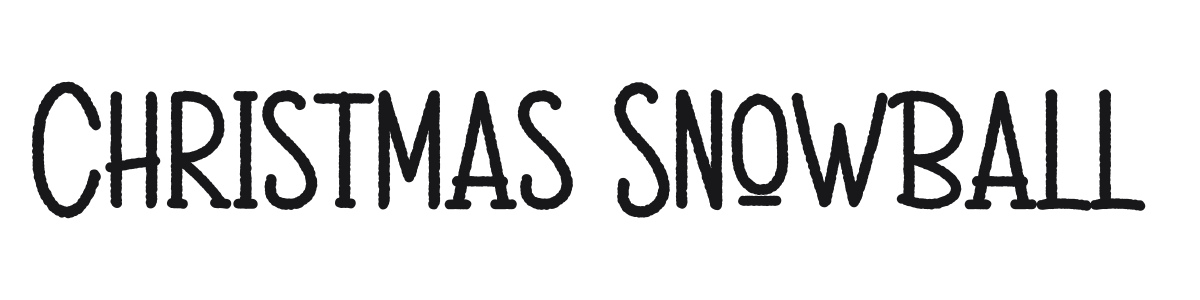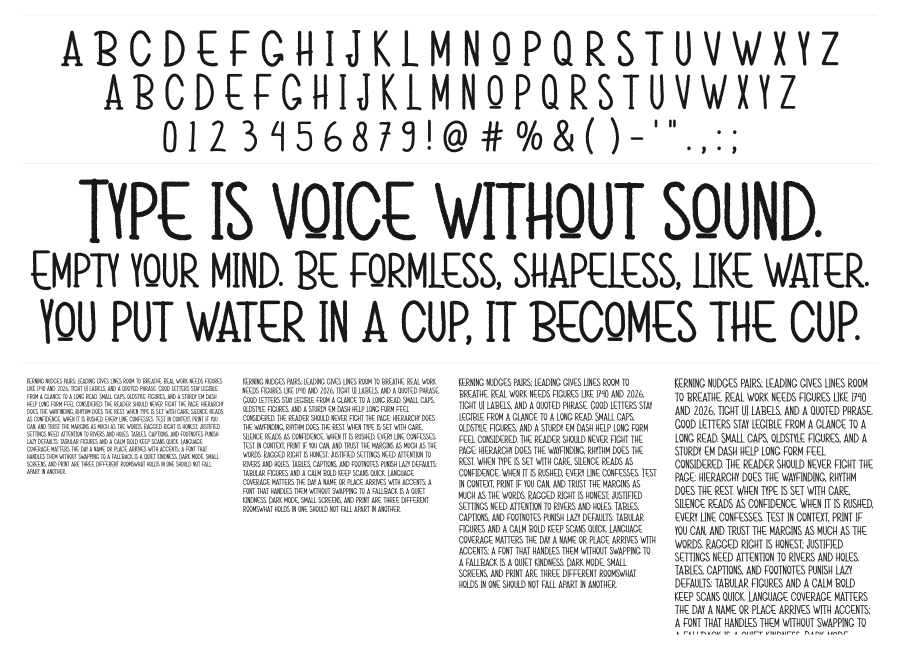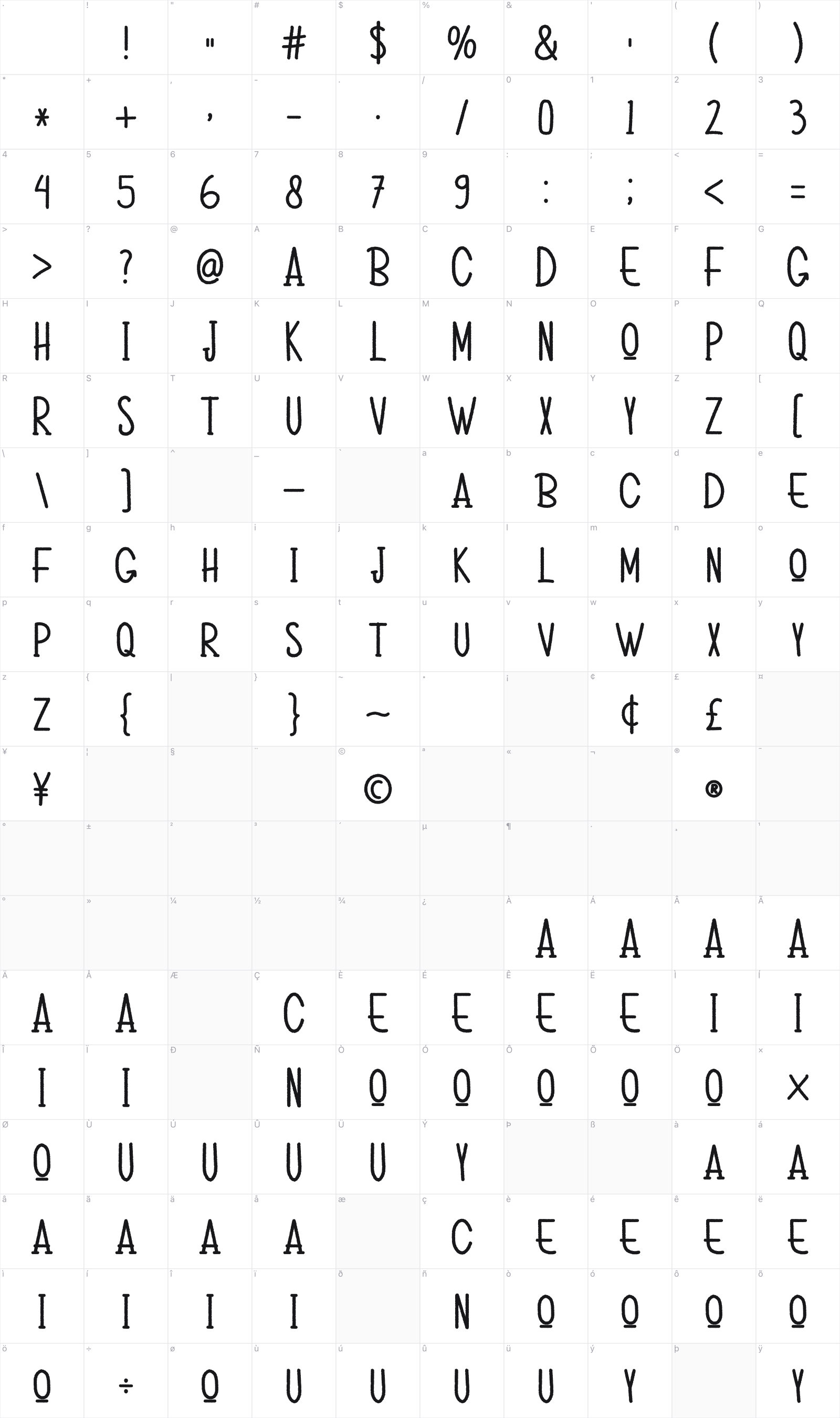
Christmas Snowball
Christmas Snowball is a condensed hand-drawn sans-serif with rough, textured edges that evoke a frosty, handcrafted feel. The slightly irregular strokes and casual construction give it a warm, festive character without being overtly cartoonish. It works best at large display sizes for holiday packaging, cards, and seasonal branding.